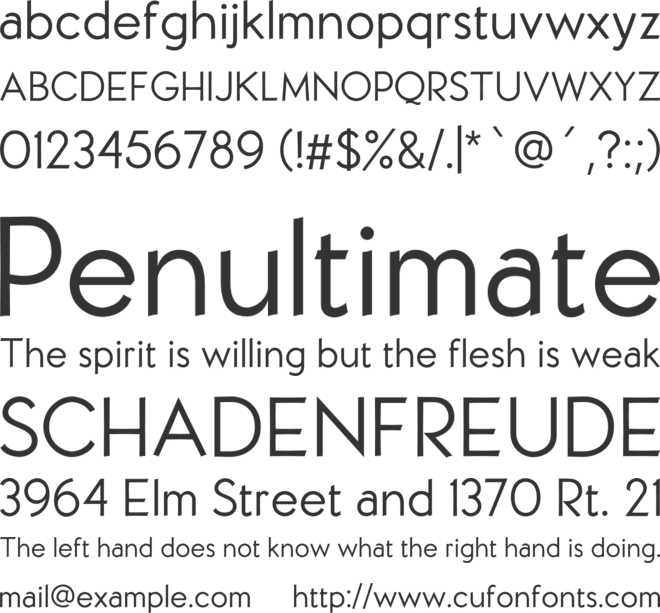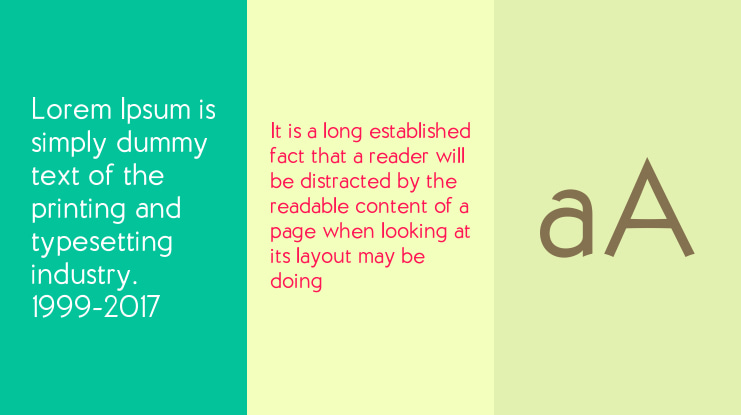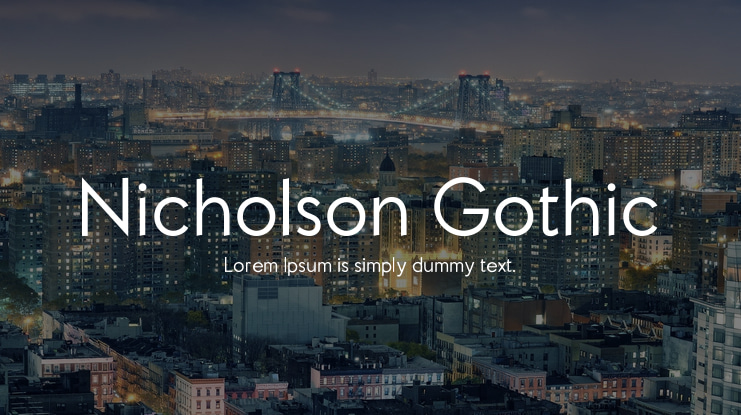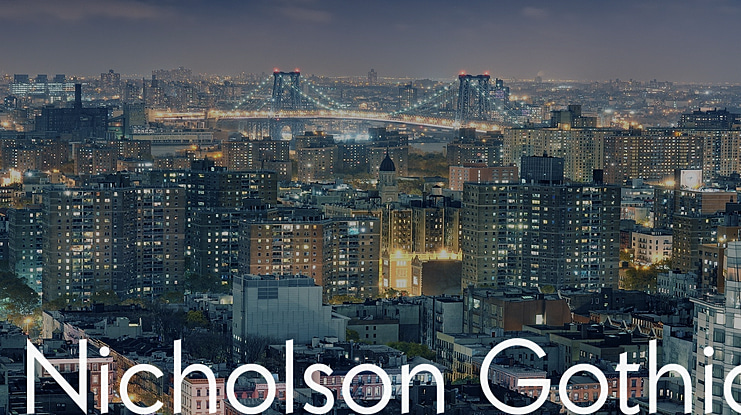
Nicholson Gothic Font
Nicholson Gothic began as a project for school where I envisioned a typeface for a local park's signage. An early version was even painted on a wooden sign.